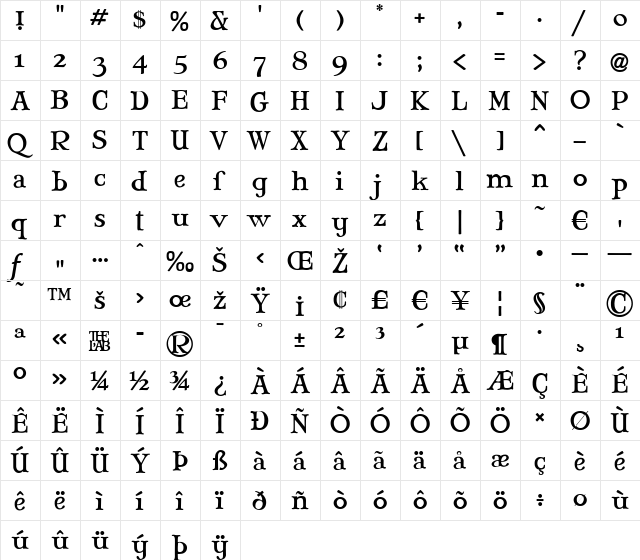
Mary Jane Antique Regular
Design Context for Mary Jane Antique Typeface
Mary Jane Antique wears its vintage influences proudly, with letterforms that recall mid-century signage, classic packaging, and nostalgia-driven design.
Ideal for diner signage, record shop branding, 70s/80s-themed projects, and heritage product labels.
Font Pairing: Combine Mary Jane Antique with a simple slab or neutral sans — period-accurate companions reinforce the vintage feel without competing for attention.
Pro Tip: Lean into Mary Jane Antique's period character by pairing it with aged paper textures, muted colour palettes, and vintage illustration styles.